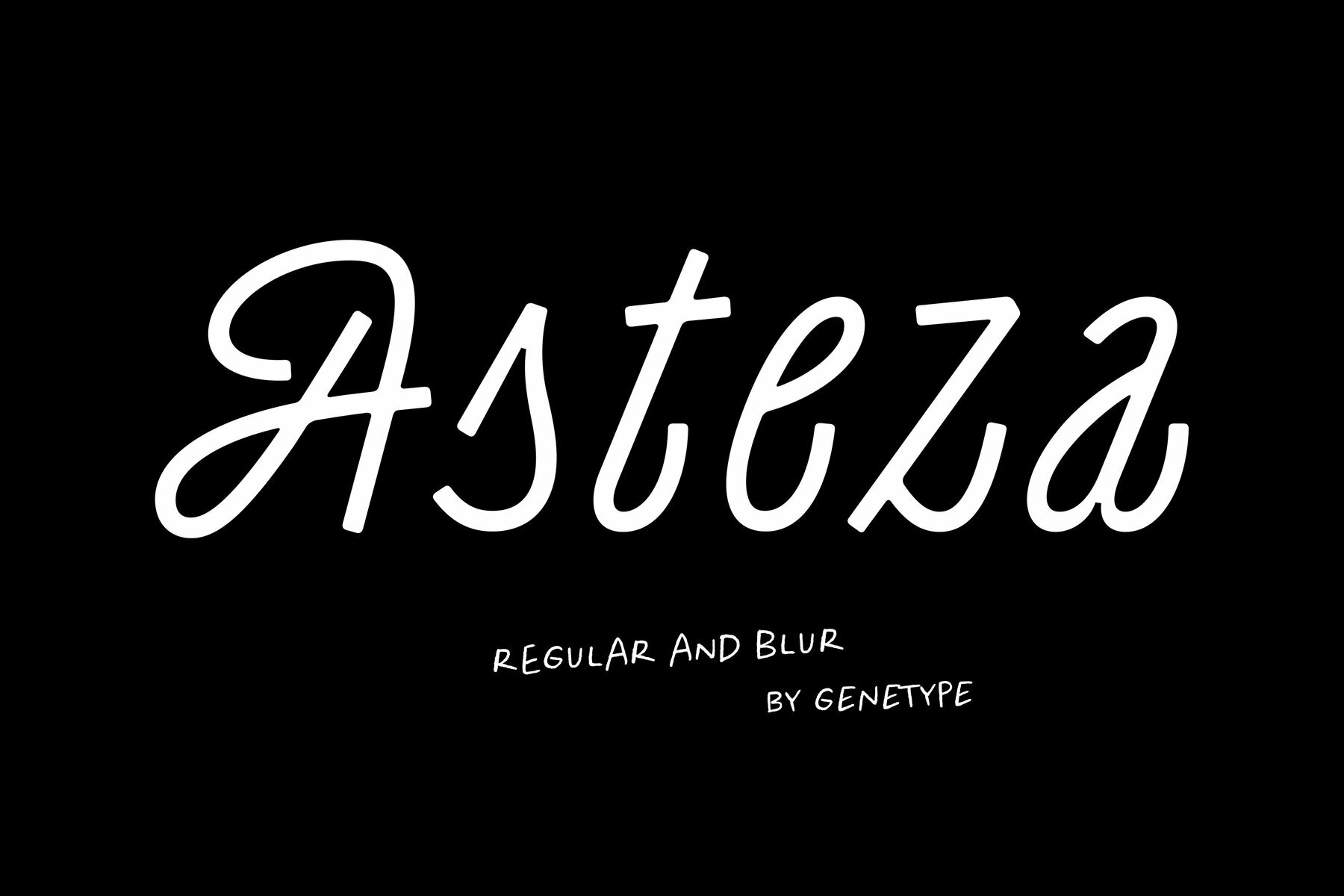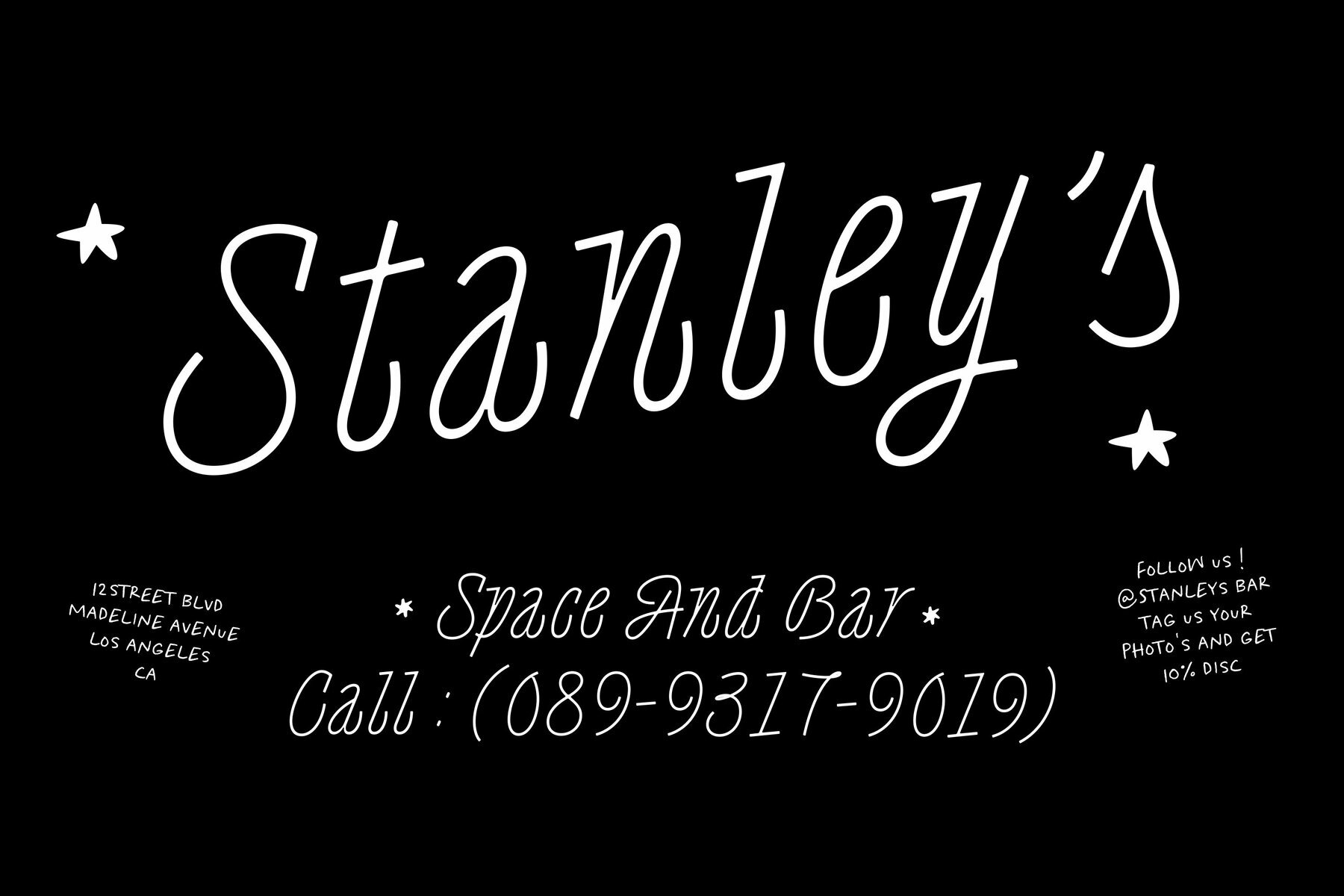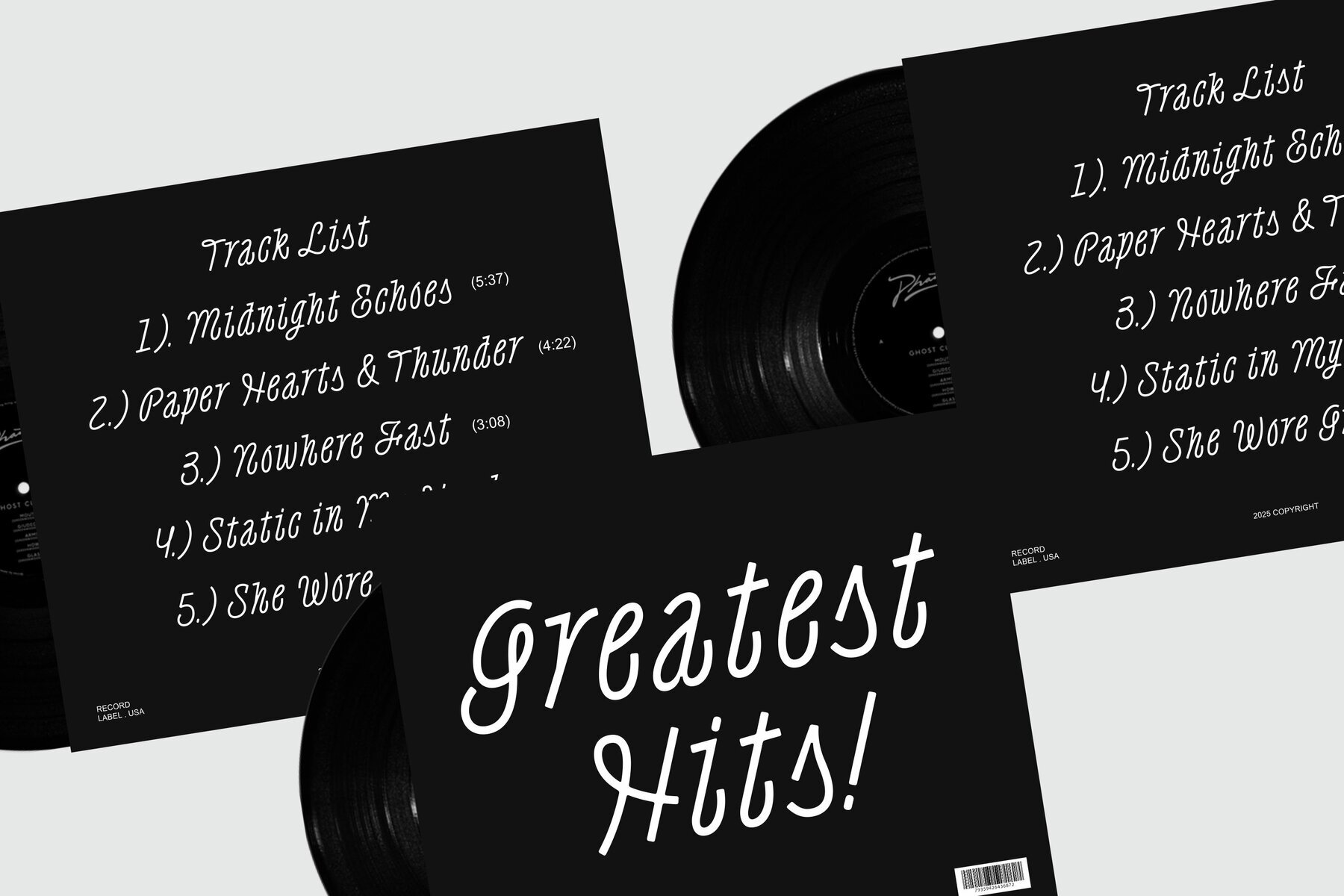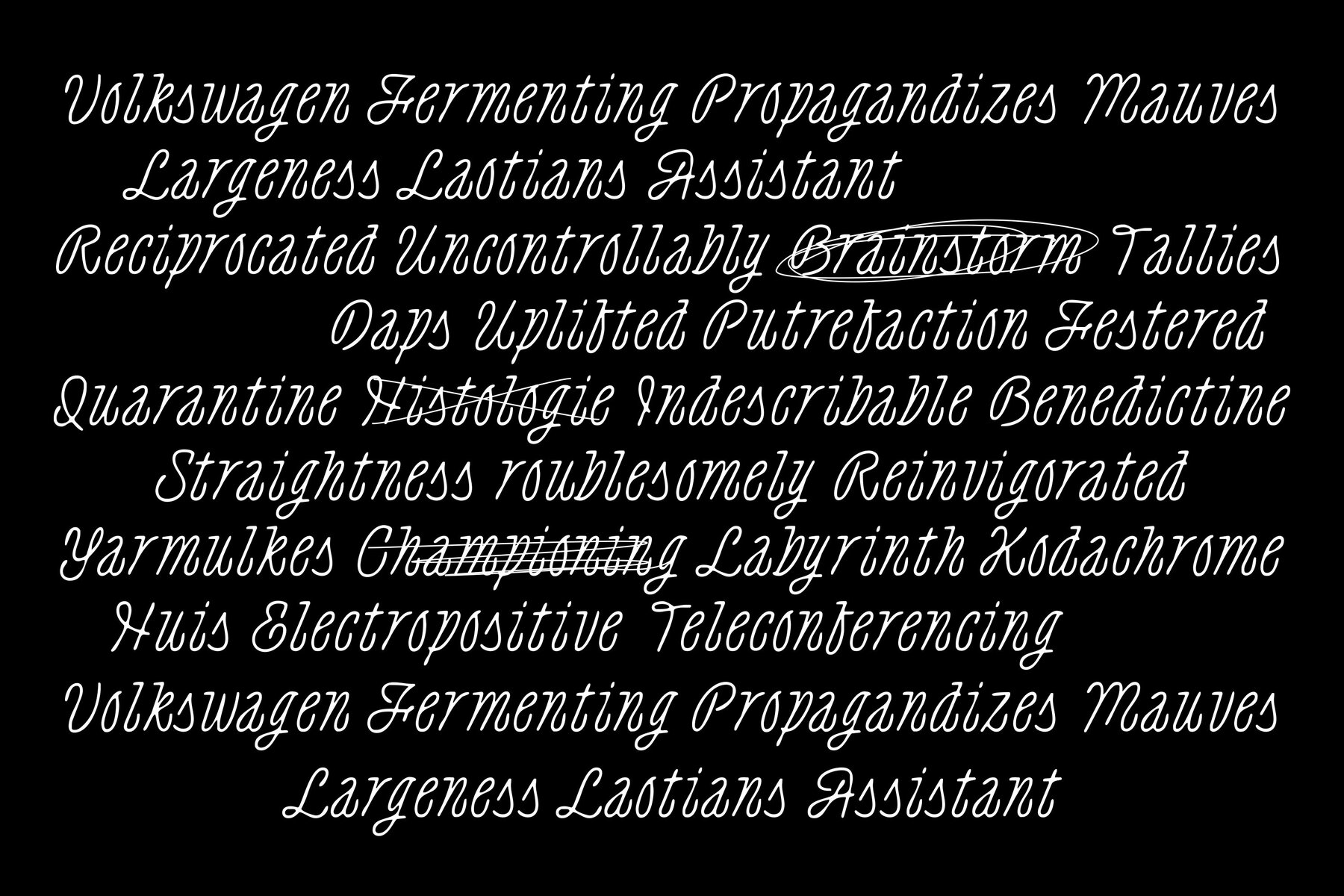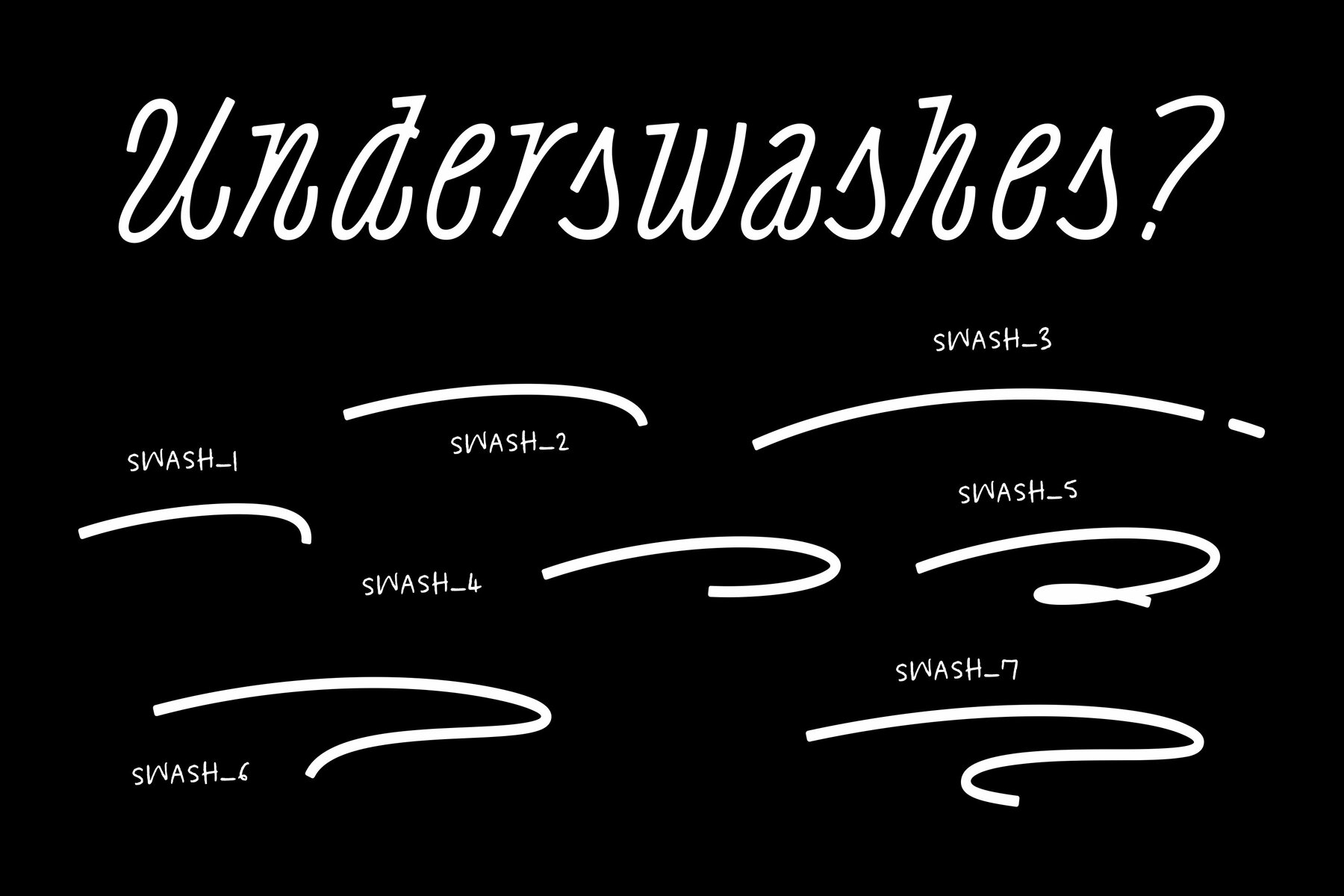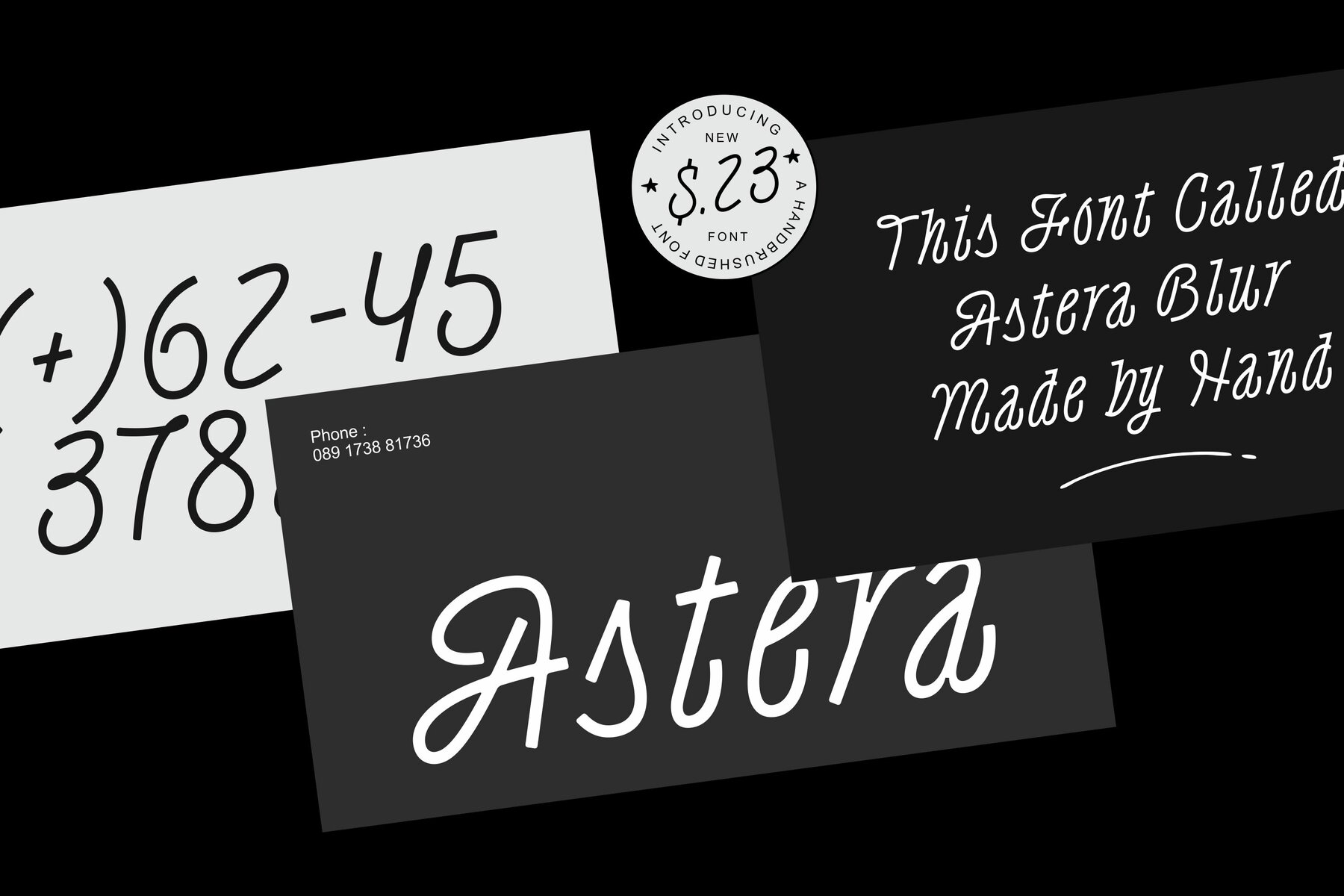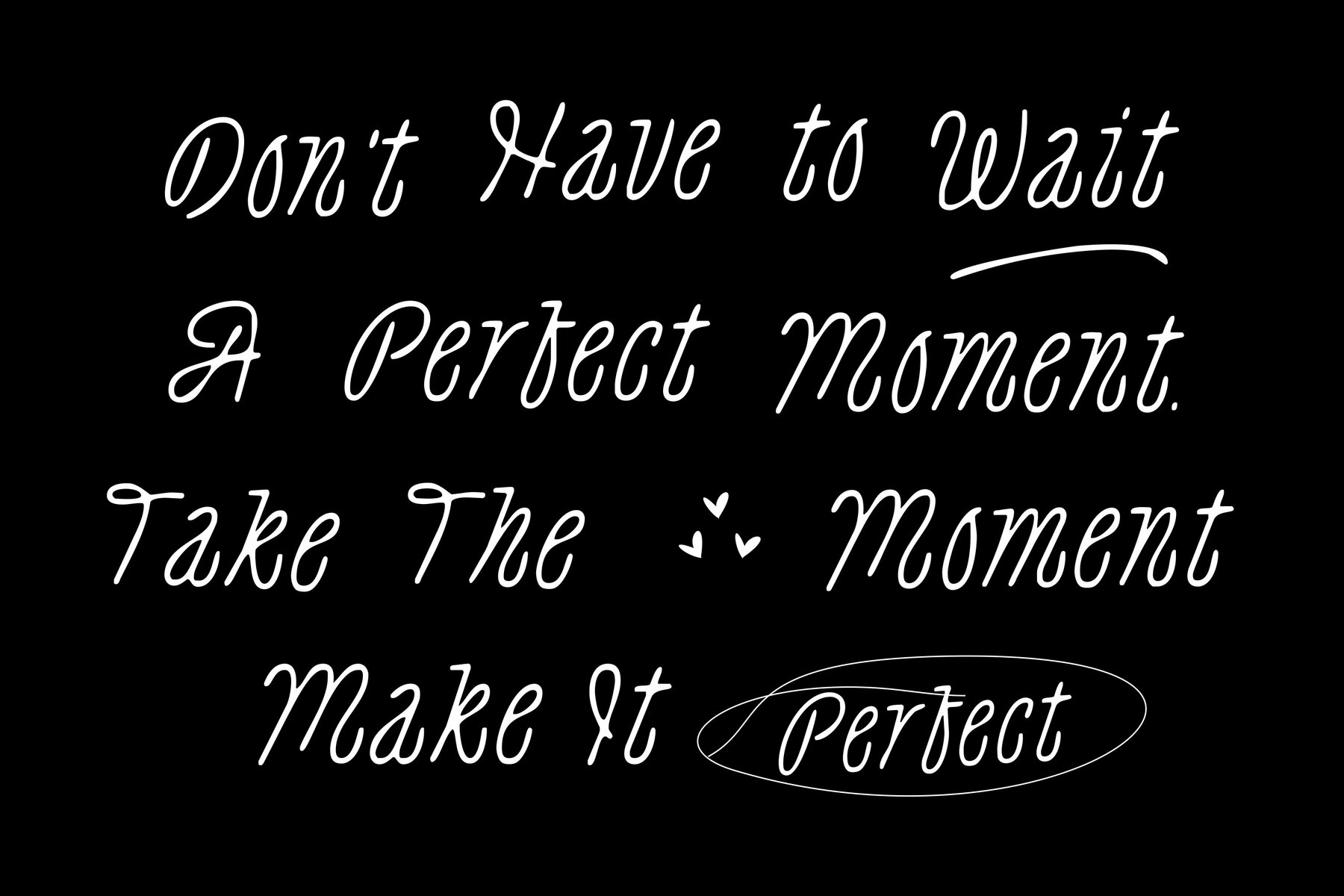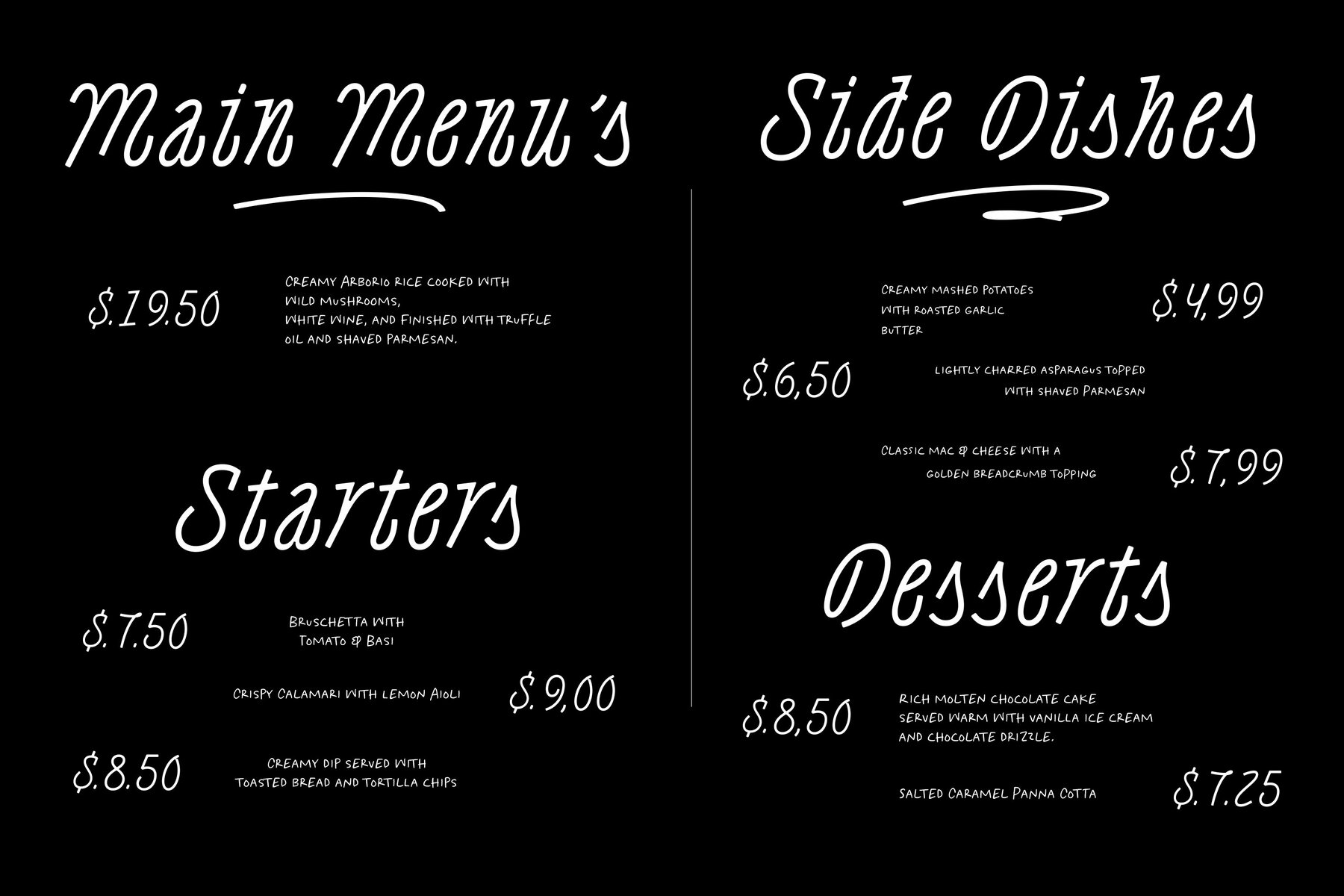
Asteza Font
Asteza, a modern handwritten font, skillfully combines effortless elegance with distinctive character. Designed with smooth curves and natural strokes, it achieves a chic yet approachable handwritten style, perfect for projects demanding authenticity and creativity. Offered in both Regular and Blur styles, Asteza provides clean and textured options that adapt seamlessly to diverse design contexts, from restaurant menus and logos to posters, packaging, and album covers. Its versatility makes it equally suitable for print and digital designs, offering a broad creative scope. With Asteza, you have a tool that enlivens text, whether for a personal handwriting impression or a refined branding initiative.Asteza: A Stylish Handwritten Script Font